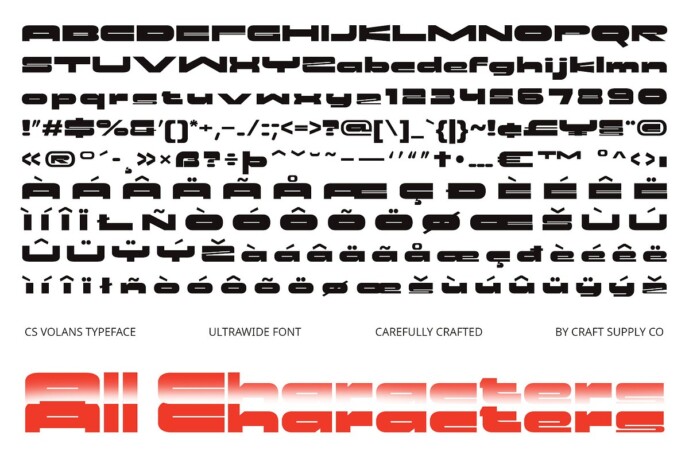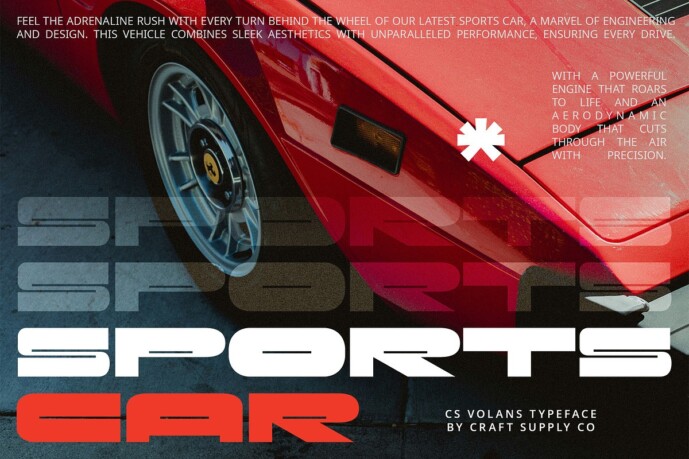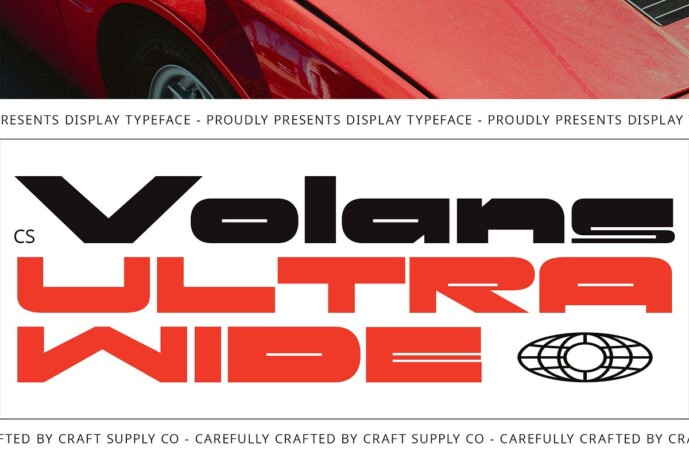
CS Volans Font
CS Volans Font – Techno Font is a bold sans serif typeface characterized by its exceptionally ultra wide width, ideal for designs seeking a strong, modern aesthetic. Categorized under techno fonts, it exudes a futuristic vibe that is perfect for projects aiming to emphasize a technological edge.
With its bold strokes and ultra wide proportions, CS Volans Font makes a bold statement in any design. Whether used for headlines, posters, or digital interfaces, its modern characteristics ensure a powerful visual impact that resonates with a sense of innovation and advancement.
From tech websites to digital displays, CS Volans Font offers versatility across various applications. Its ultra wide form and strong presence make it suitable for branding, advertising, and any design requiring a contemporary and futuristic look. Explore the possibilities of CS Volans Font to elevate your designs with its bold, techno-inspired style.